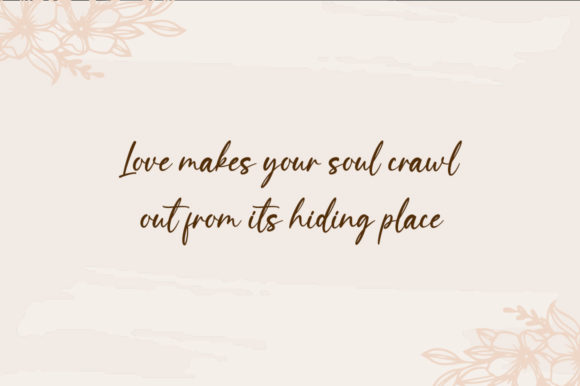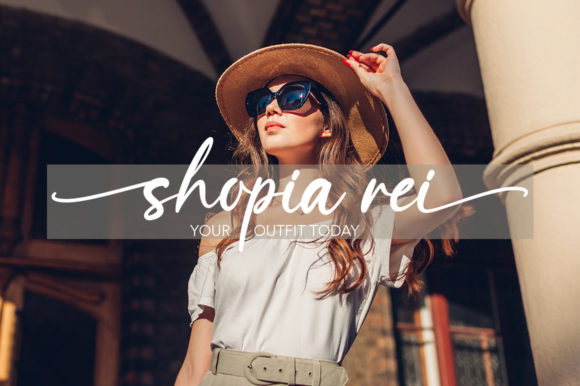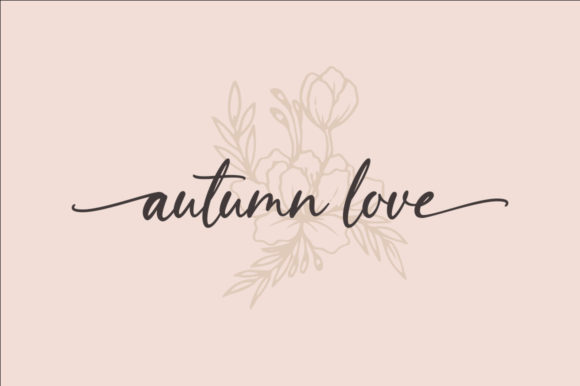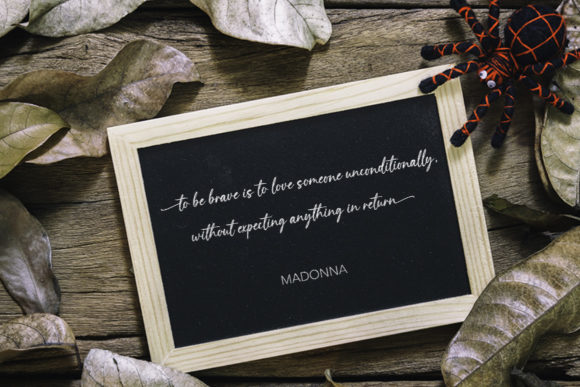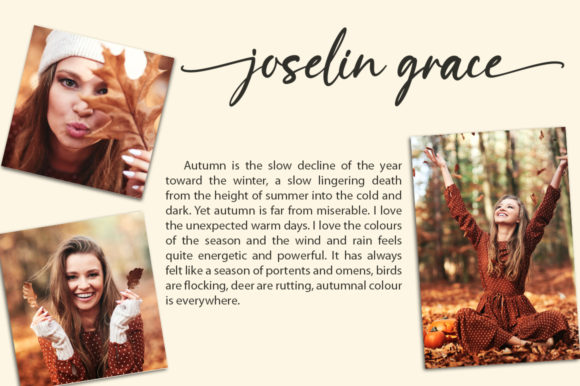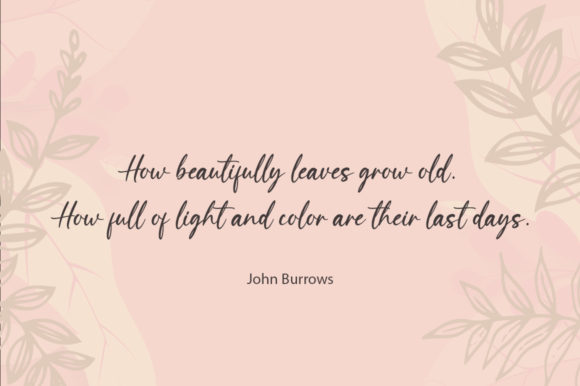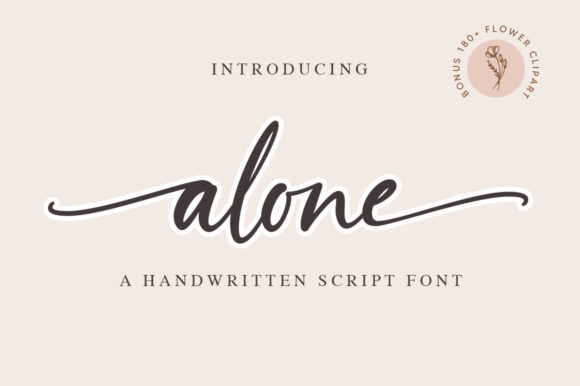
Discover the Charm of Alone Font: A Timeless Handwritten Delight
Are you a designer or crafter looking for a font that can add a touch of elegance and sophistication to your creative projects? Look no further than Alone Font, a lovely and timeless handwritten font that’s perfect for creating eye-catching logos, branding, and quotes.
The Unique Characteristics of Alone Font
What sets Alone Font apart from other fonts is its unique and beautiful touch. Every letter has been carefully crafted to give your design a personal and handmade feel that’s sure to capture the attention of your audience. Whether you’re creating a logo, branding materials, or social media graphics, Alone Font is the perfect choice.
One of the best features of Alone Font is that it’s PUA (Private Use Area) encoded. This means that you can access all of the glyphs and swashes with ease, giving you even more creative freedom to experiment with different designs. With PUA encoding, you can easily insert special characters, ligatures, and other unique elements that will make your design stand out.
Alone Font is a versatile font that’s perfect for a wide range of design applications. Whether you’re a professional designer or a crafter looking to add a personal touch to your DIY projects, Alone Font is a great choice. Here are just a few ways you can use Alone Font:
- Create eye-catching logos and branding materials that will help your business stand out
- Design beautiful quotes and social media graphics that will engage your audience
- Add a personal touch to your DIY projects, such as handmade cards, invitations, and crafts
Why Choose Alone Font?
So why choose Alone Font over other fonts? Here are just a few reasons:
- Unique and beautiful design: Every letter has a unique and beautiful touch that will make your design come alive
- PUA encoded: Easy access to all glyphs and swashes for added creative freedom
- Timeless and versatile: Perfect for a wide range of design applications, from logos and branding to quotes and DIY projects
- Elegant and sophisticated: Adds a touch of elegance and sophistication to any design
Tips for Using Alone Font
Here are a few tips for getting the most out of Alone Font:
- Experiment with different sizes and colors: Alone Font looks great in a variety of sizes and colors, so don’t be afraid to experiment and find the perfect combination for your design
- Mix and match with other fonts: Alone Font pairs well with other fonts, so try mixing and matching it with different fonts to create a unique look
- Use the glyphs and swashes: Take advantage of the PUA encoding and use the glyphs and swashes to add extra interest and personality to your design
Alone Font is a beautiful and versatile handwritten font that’s perfect for designers and crafters looking to add a touch of elegance and sophistication to their creative projects. With its unique and beautiful design, PUA encoding, and timeless versatility, Alone Font is a great choice for anyone looking to create eye-catching logos, branding, and quotes. So why wait? Download Alone Font today and start creating your own stunning designs!